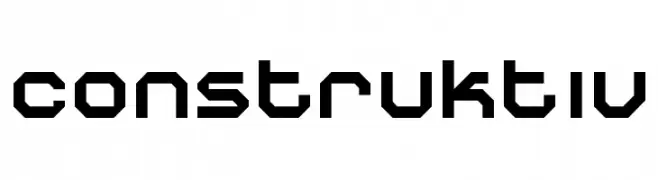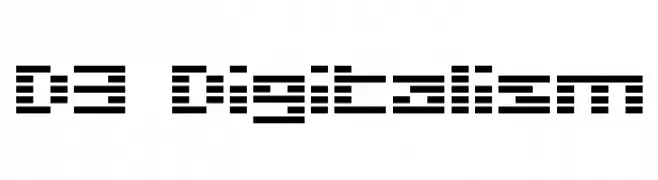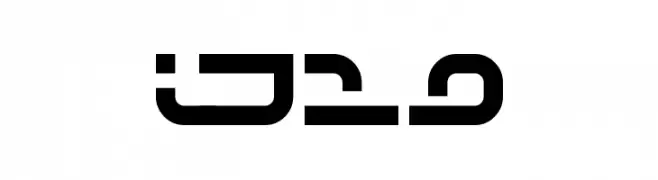
A bold, geometric font with a strong, cohesive design ideal for impactful headlines.
A bold, dramatic Blackletter-style font with sharp, angular lines.
A playful, outlined font with a paper clip-like design and rounded edges.
A playful, retro font with bold, rounded letters and a hand-drawn feel.
A bold, geometric font with a futuristic and architectural style.
A pixelated, digital-style font inspired by LED displays.
A bold, 3D block font with a modern, geometric style and shadow effect.